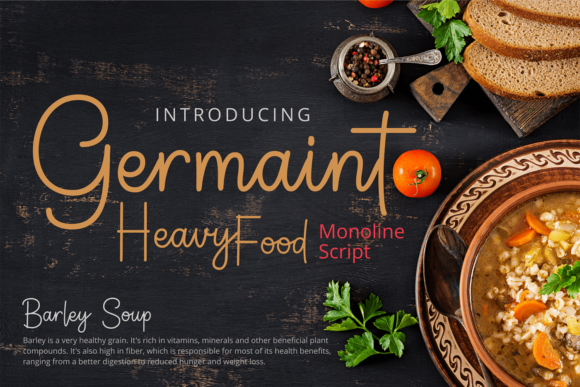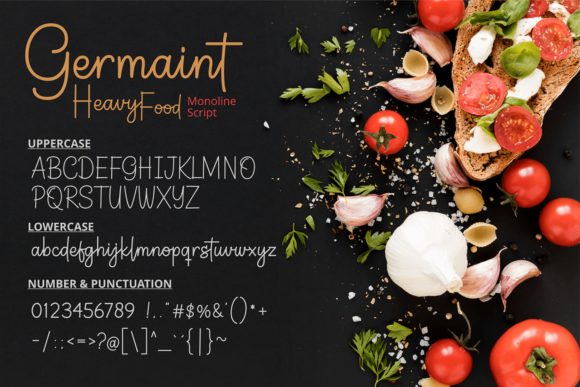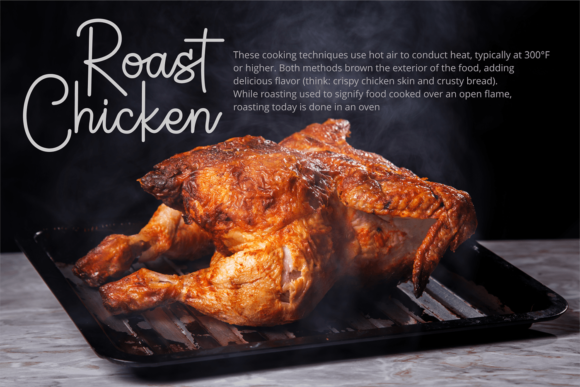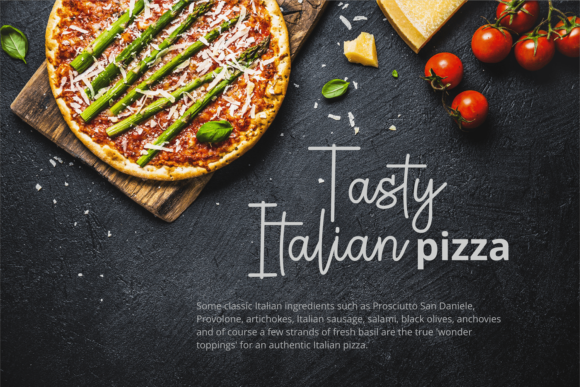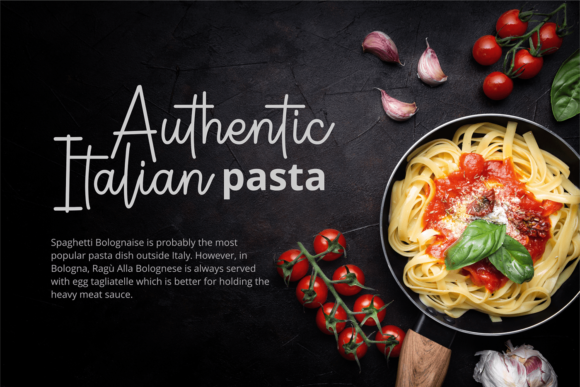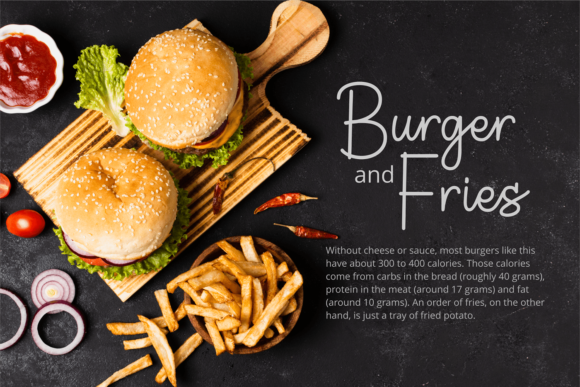
Germaint Font
About Germaint Font
Germaint is an elegant script font, carefully handcrafted to become a true favorite. Its casual charm makes it appear wonderfully down-to-earth, readable and, ultimately, incredibly versatile. Germaint will look outstanding in any context, whether it’s being used on busy backgrounds or as a standalone headline!